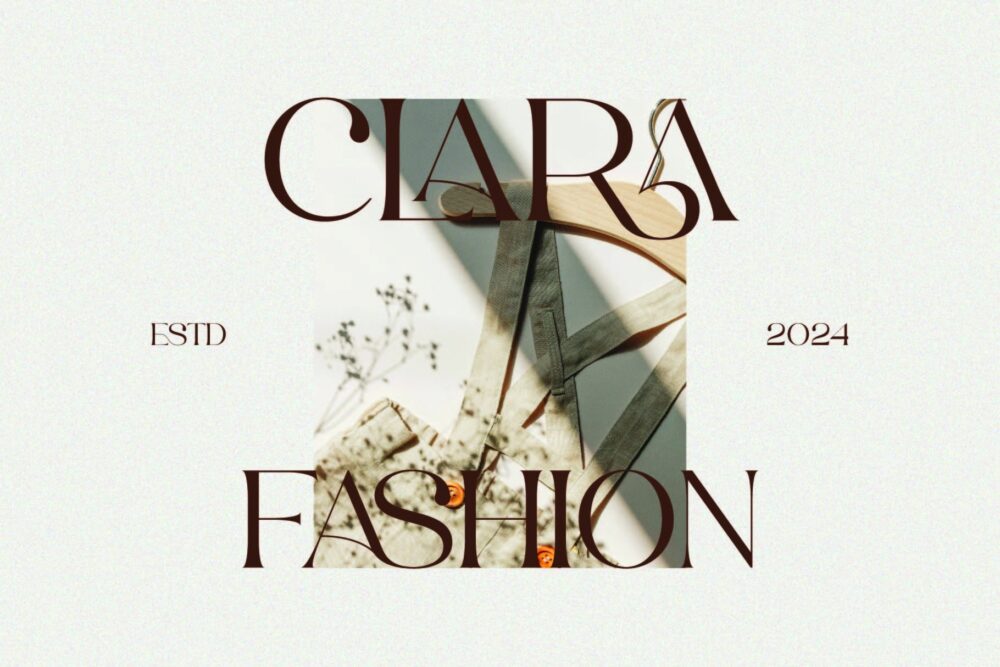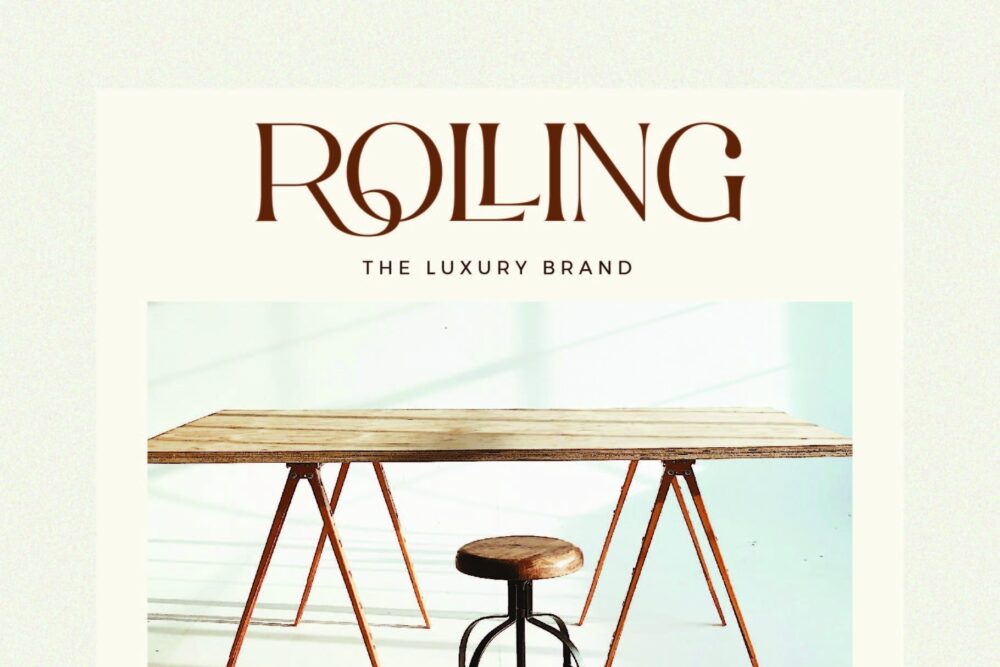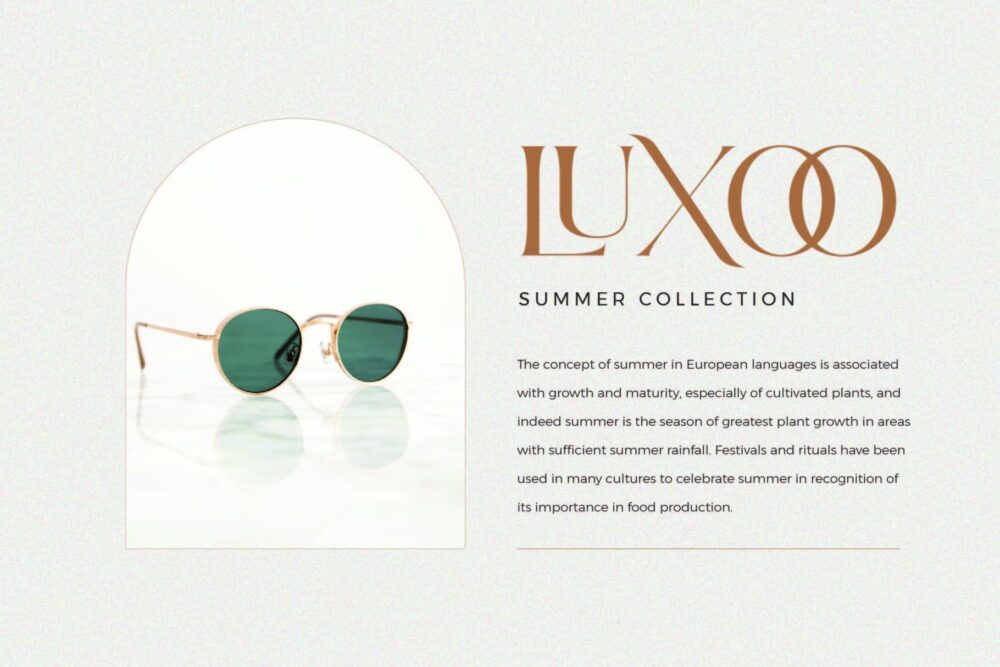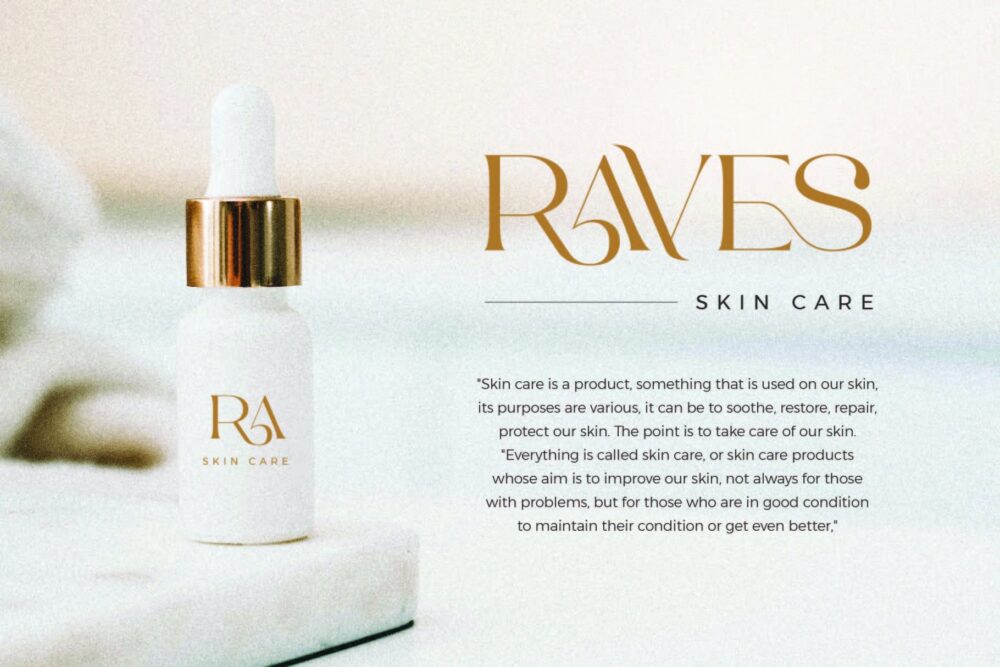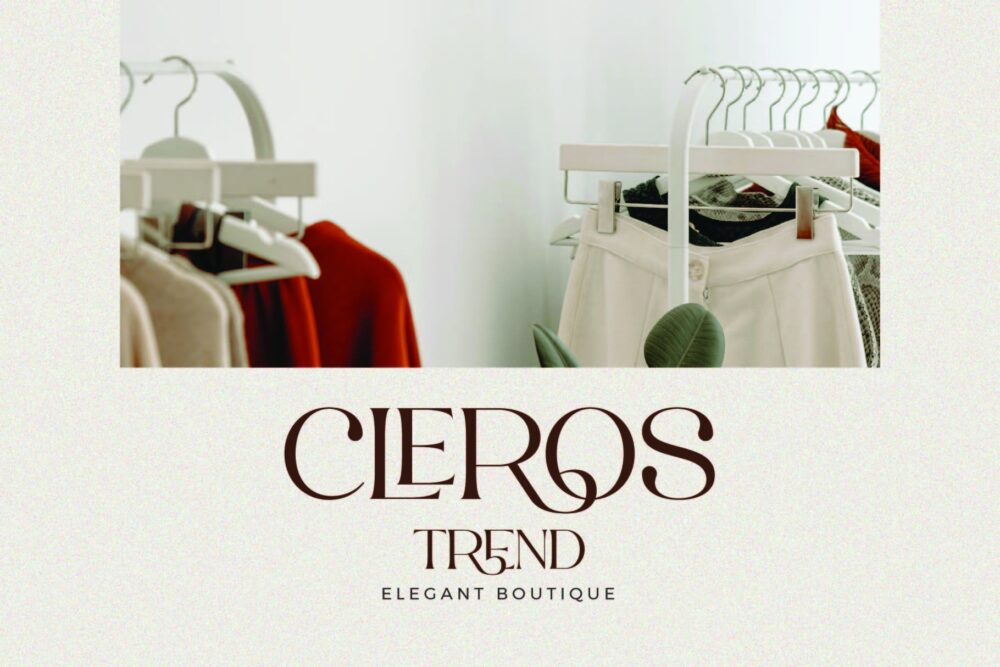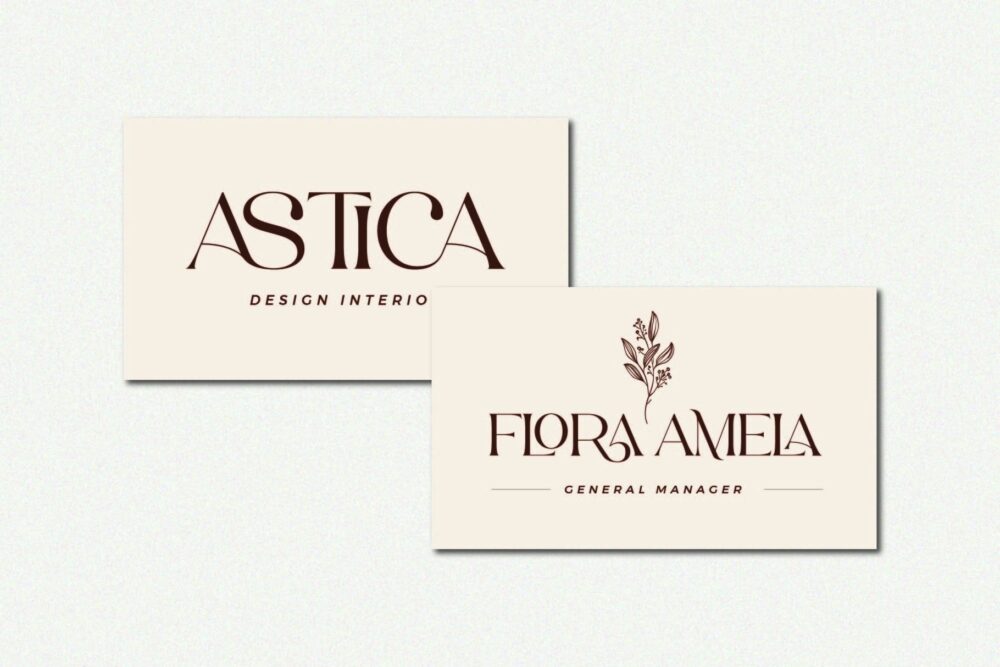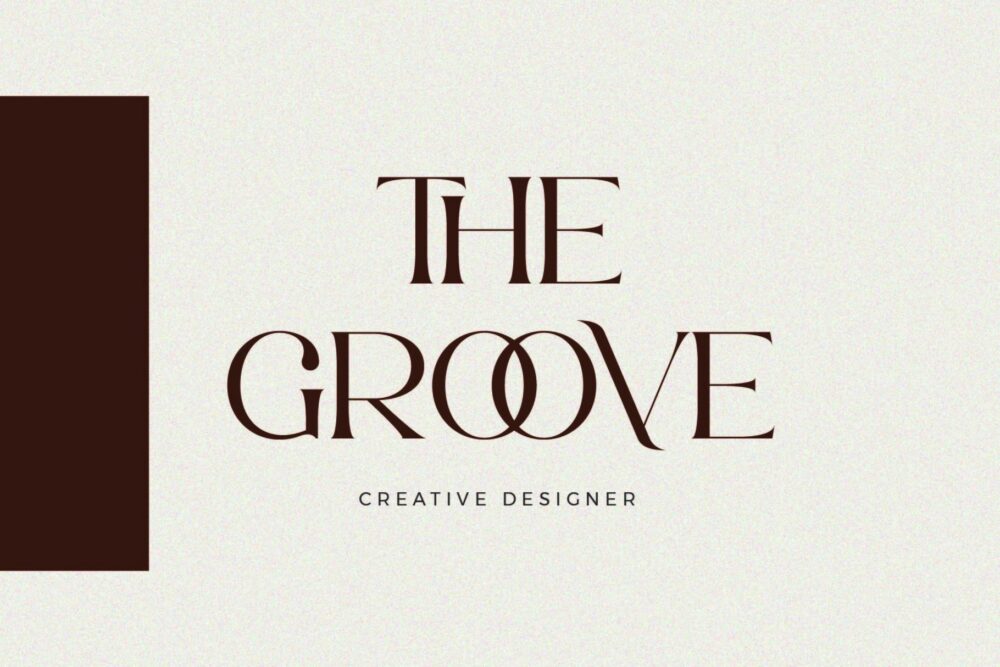
Askha
Askha Stylish Ligature Typeface, inspired by the famous minimalist logo perfect for the purposes of designing templates, brochures, videos, advertising branding, logos and more.
Askha – Beautiful Serif Font